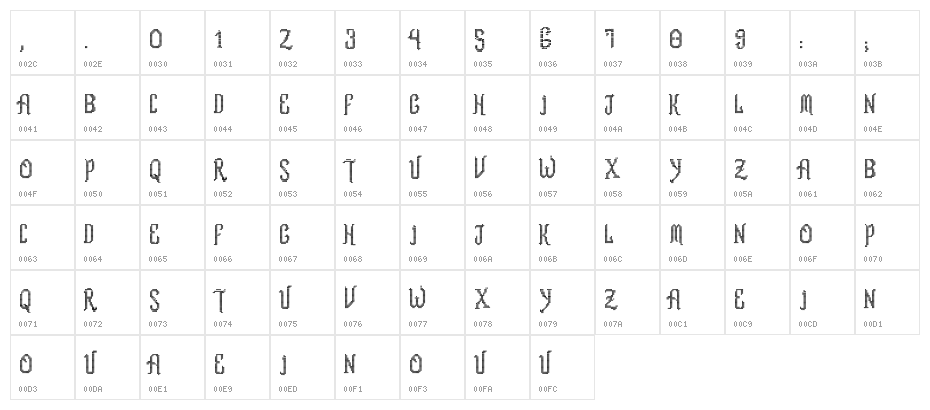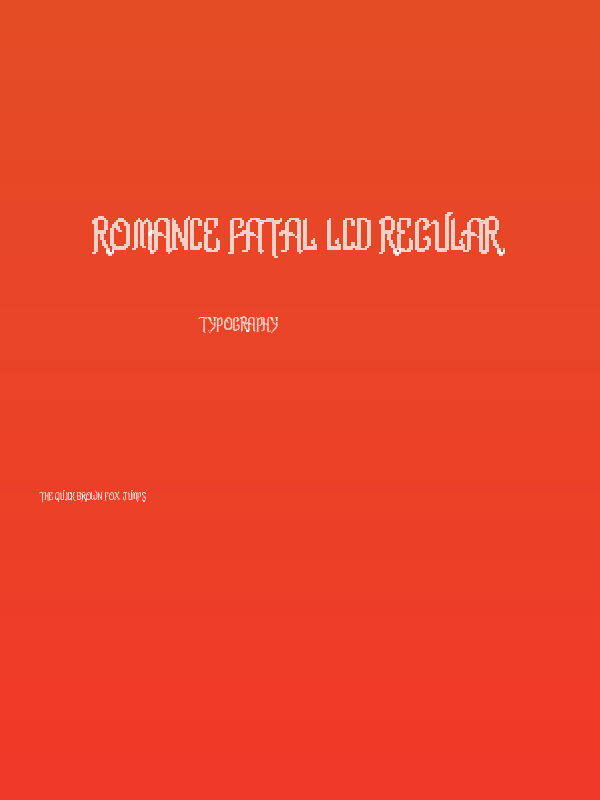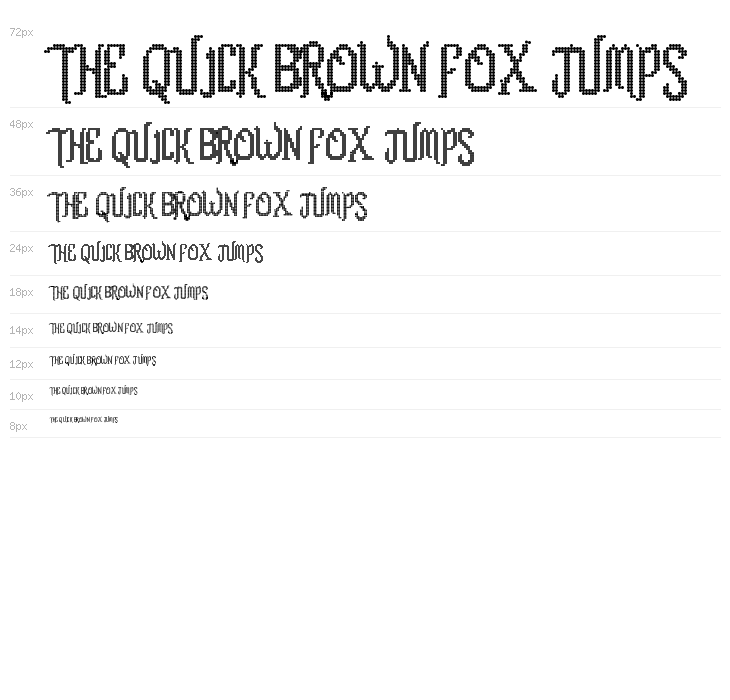
Romance fatal LCD Regular Font
Romance fatal LCD Regular Description
This font features a unique pixelated design, reminiscent of early digital displays and retro gaming aesthetics. Each character is constructed from a grid of small squares, giving it a distinct, blocky appearance. The uppercase and lowercase letters maintain a consistent style, with angular edges and a uniform height that enhances readability despite the unconventional design. Numbers and special characters follow the same pixelated pattern, ensuring a cohesive look across all text elements. The font's playful yet structured form makes it suitable for projects that aim to evoke nostalgia or a digital theme.
| Overall Style | Retro, Digital |
| Use Case | Logos, Posters, Digital Art |
| Proposed Projects | Ideal for retro video game graphics, digital art projects, tech-themed posters, and nostalgic branding materials. |